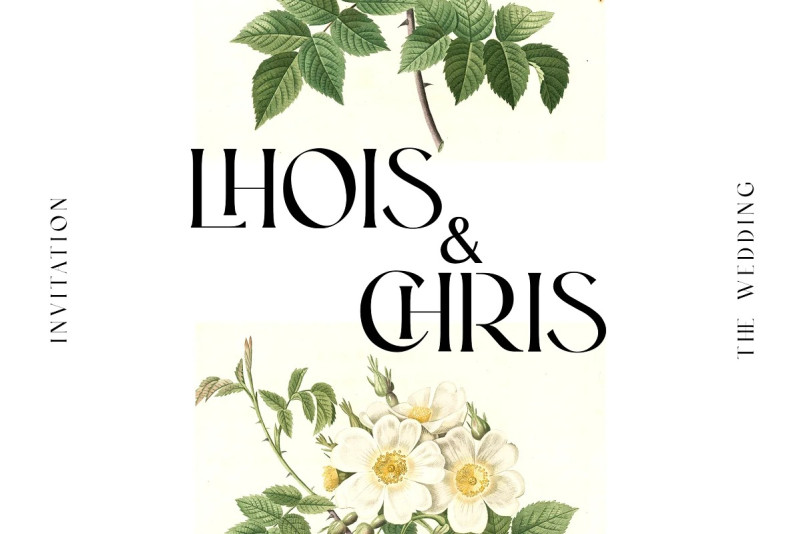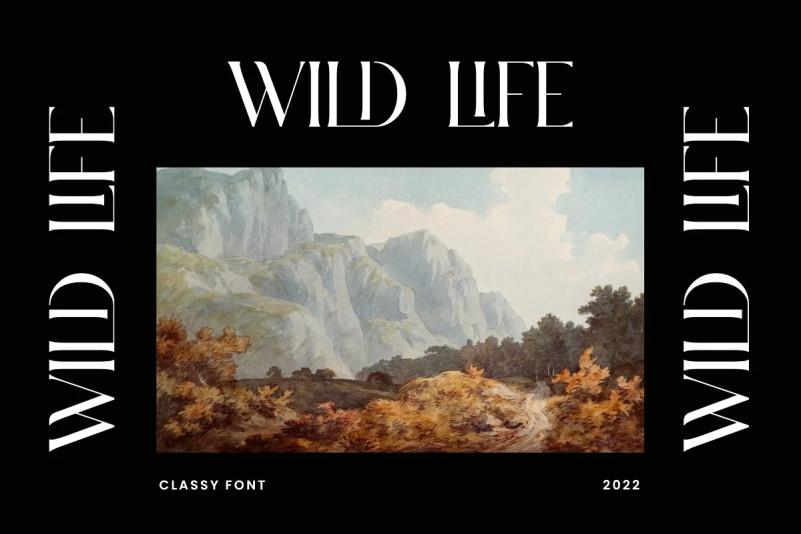
Bohemian Font
Bohemian Font – Stylish Luxury Serif Font. Modern Serif font that feels beautiful classy, elegant, and modern. This font is ideally suited for a wide variety of projects, such as signature, stationery, logo, wedding, typography quotes, magazine or book covers, website headers, clothing, branding, packaging design, and more. Also, fashion-related branding or editorial design displays both masculine and feminine qualities.